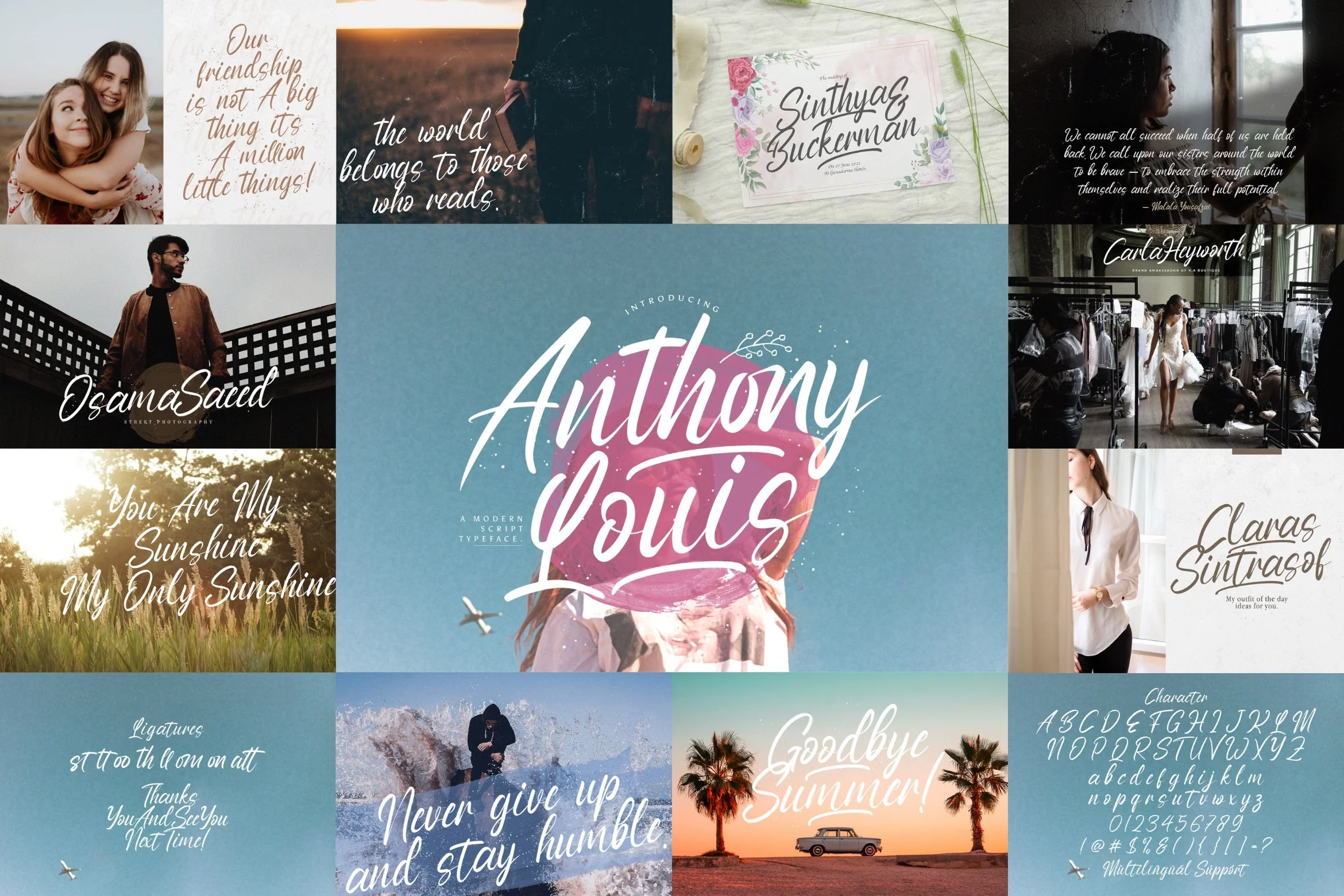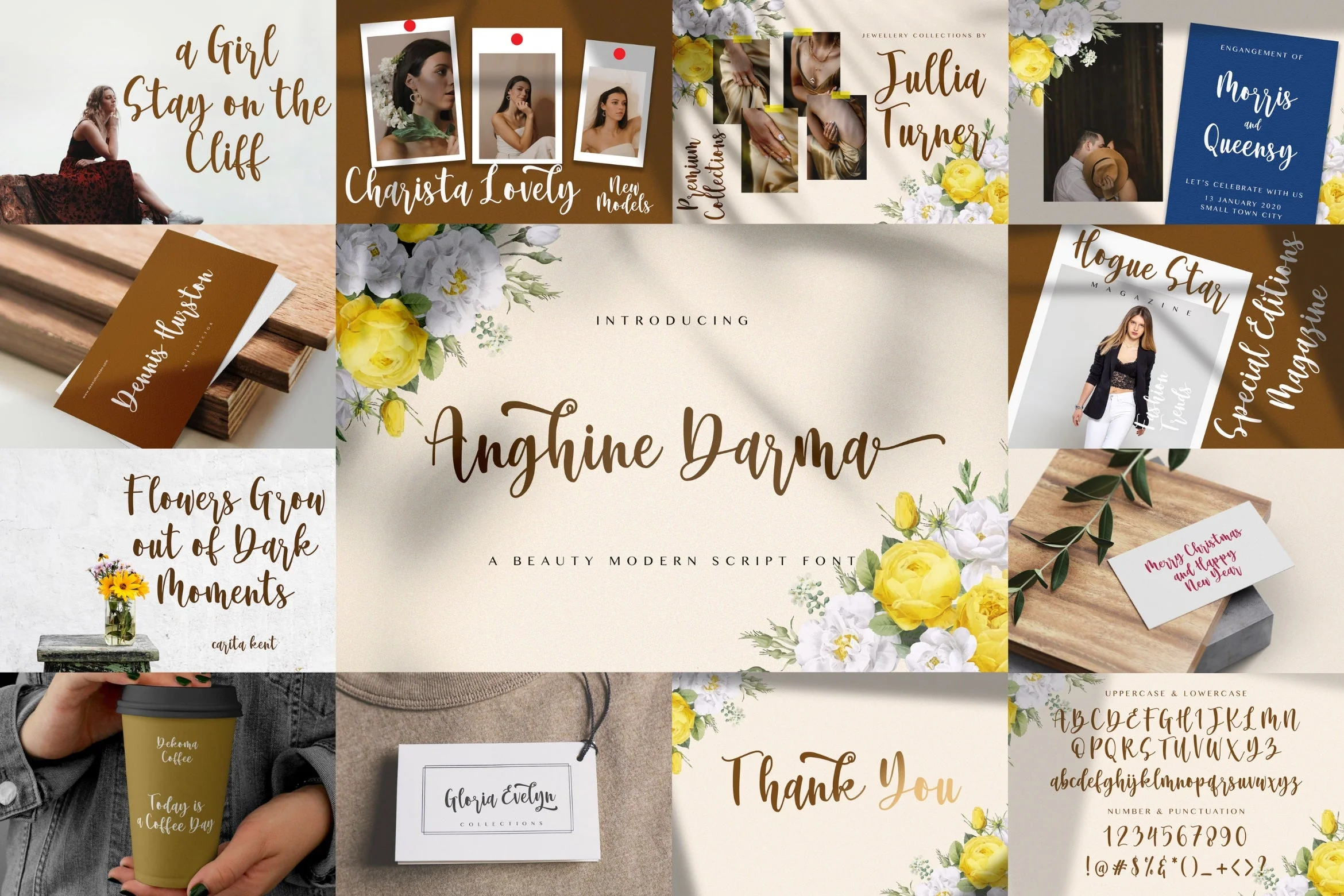
Calligraphy Font Bundle Vol 1
Calligraphy Font Bundle Vol 1 is a delicate, elegant and flowing calligraphy font. This font bundle contains 8 high quality handwritting calligraphy script font, it will look simply magical in a wide range of design projects, and also that will look particularly adept when used in logos, branding, packaging design, and much more. It has beautiful and well balanced characters and as a result, it matches a wide pool of designs. Add it to your most creative ideas and notice how it makes them come alive!
1. The Anelka Fambuya
2. Madena parlling
3. Farisky Marlline
4. Britany Queens
5. Anghine Darma
6. Angelina Rahmy
7. Rusthina Script
8. Anthony Louis